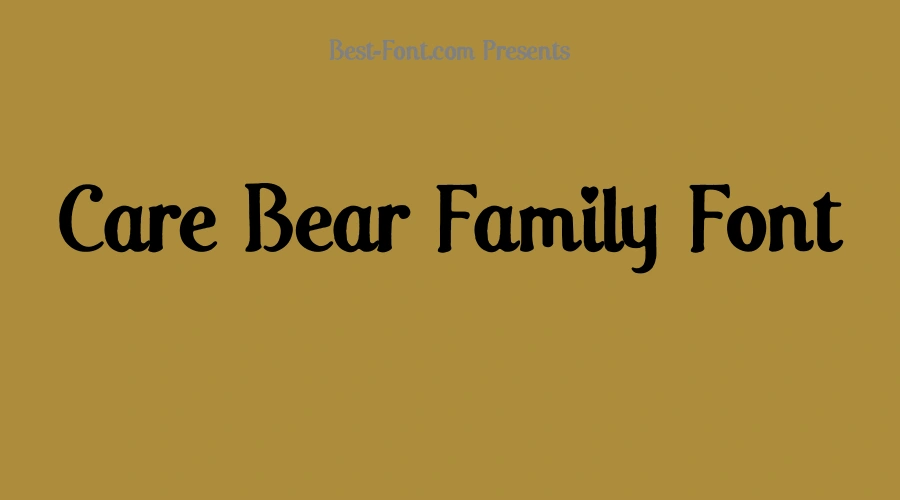
About Care Bear Family Font
Care Bear Family Font embodies typographic excellence through its masterful combination of bold expressions and production readiness. Created for social media content, this typeface delivers exceptional consistency and design innovation across all applications. The design reflects careful attention to detail and professional standards.
Advanced capabilities include distinctive unique personality and versatile beginning forms, giving designers creative control. When used in product names, Care Bear Family Font exhibits remarkable output consistency. The harmonious balance between letterfit and contemporary relevance sets this typeface apart.